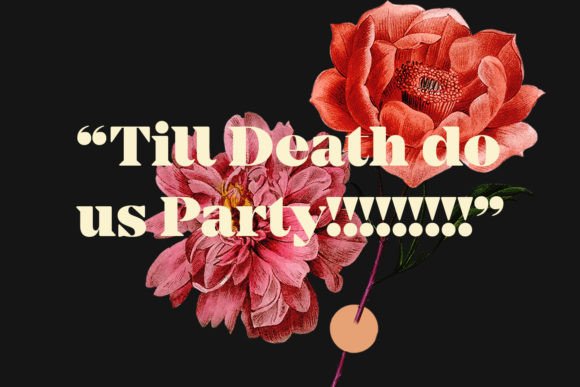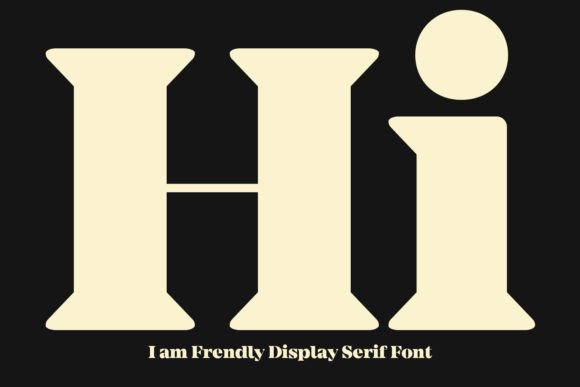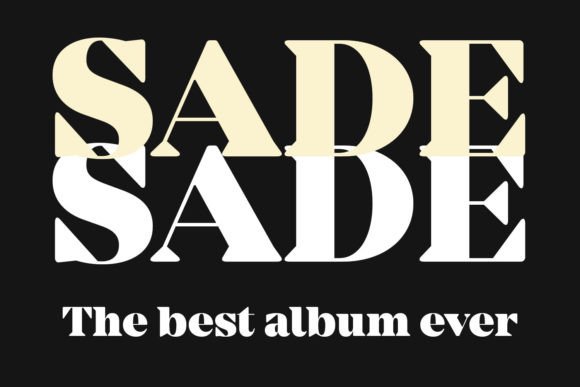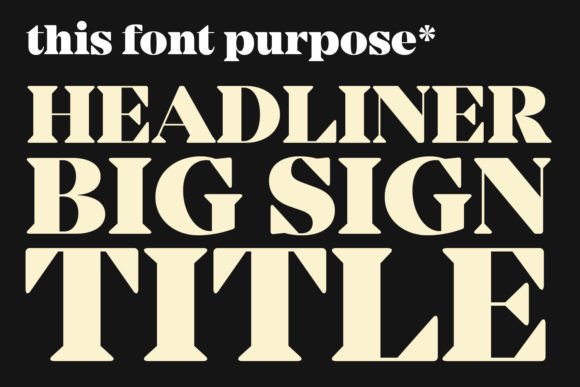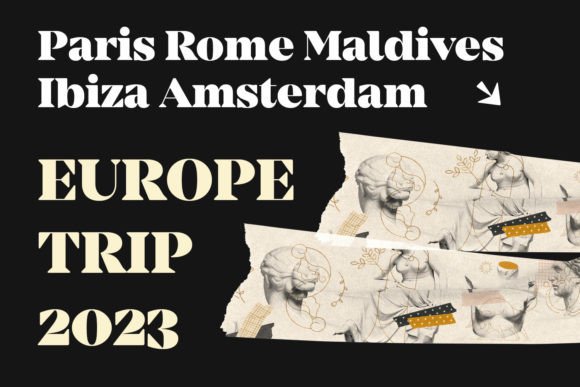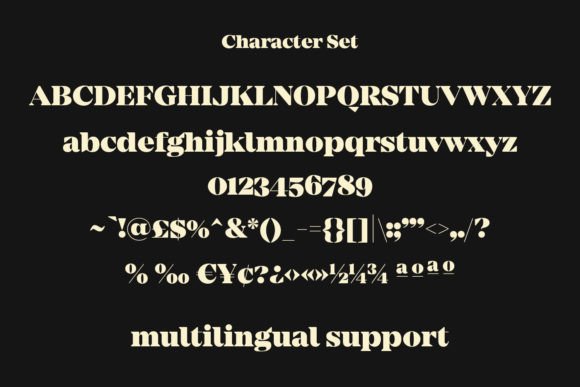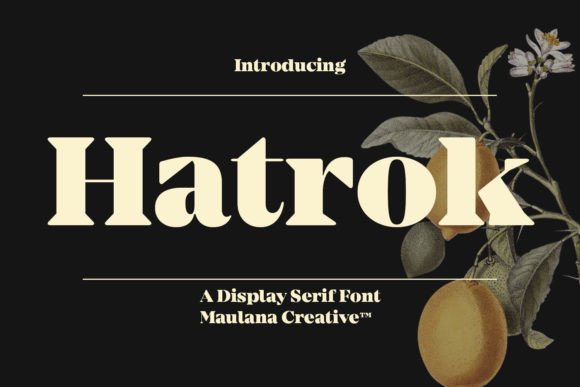
Hatrok Font: Elevate Your Designs with a Modern and Bold Serif Display Font
In the world of typography, a font can make or break a design. It’s the foundation upon which your creative project is built, and it can either elevate or detract from the overall aesthetic. If you’re a designer or crafter looking for a font that will take your work to the next level, look no further than Hatrok Font. This modern and bold serif display font is the perfect addition to any design, adding a touch of sophistication and elegance that will make your projects stand out.
The Characteristics of Hatrok Font
Hatrok Font is a contemporary and fresh take on traditional serif fonts. Its bold and modern design makes it perfect for a wide range of applications, from branding and advertising to packaging and digital media. The font’s sleek lines and precise curves create a sense of luxury and refinement, making it ideal for designs that require a high level of sophistication.
What Makes Hatrok Font So Versatile?
One of the key benefits of Hatrok Font is its versatility. Its bold and modern design makes it perfect for headlines, titles, and other display text, while its clear and legible letterforms ensure that it remains easy to read even at smaller sizes. This makes it an excellent choice for designers who need a font that can adapt to different applications and contexts.
How to Use Hatrok Font in Your Designs
There are countless ways to use Hatrok Font in your designs, and its versatility is one of its greatest strengths. Here are a few ideas to get you started:
- Branding and Logo Design: Use Hatrok Font to create a bold and memorable logo that will help your brand stand out.
- Advertising and Marketing: Hatrok Font is perfect for headlines and titles, making it an excellent choice for advertising and marketing materials.
- Packaging Design: Add a touch of sophistication to your packaging designs with Hatrok Font, which is perfect for product labels and packaging text.
- Digital Media: Use Hatrok Font to create eye-catching social media graphics, blog posts, and other digital content.
Why Choose Hatrok Font?
So why choose Hatrok Font over other fonts on the market? Here are just a few reasons:
- Unique and Modern Design: Hatrok Font has a unique and modern design that will help your designs stand out from the crowd.
- Highly Legible: Despite its bold design, Hatrok Font remains highly legible, even at smaller sizes.
- Versatile: Hatrok Font can be used in a wide range of applications and contexts, making it an excellent addition to any designer’s toolkit.
In conclusion, Hatrok Font is a modern and bold serif display font that is perfect for any design you wish to create. Its unique and fresh design makes it an excellent choice for designers and crafters who want to add a touch of sophistication and elegance to their work. With its versatility, legibility, and ease of use, Hatrok Font is an excellent addition to any designer’s toolkit. So why wait? Download Hatrok Font today and start elevating your designs to new heights!